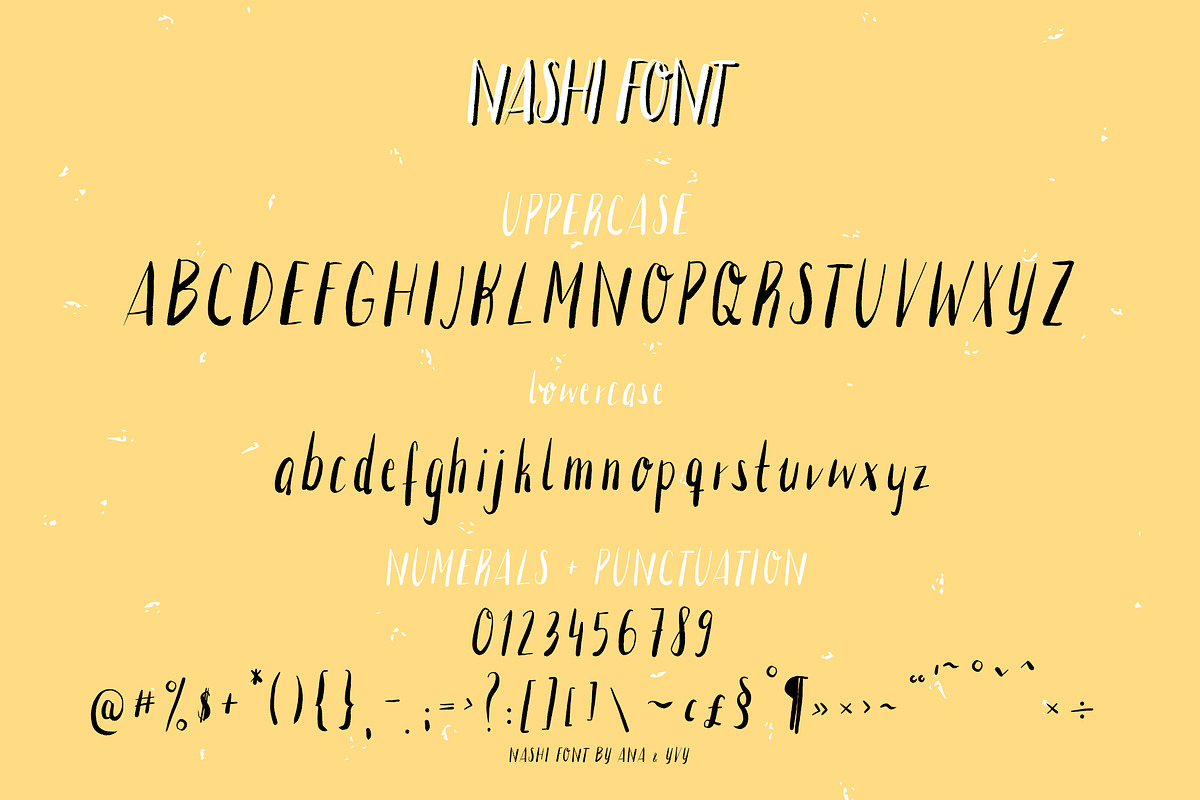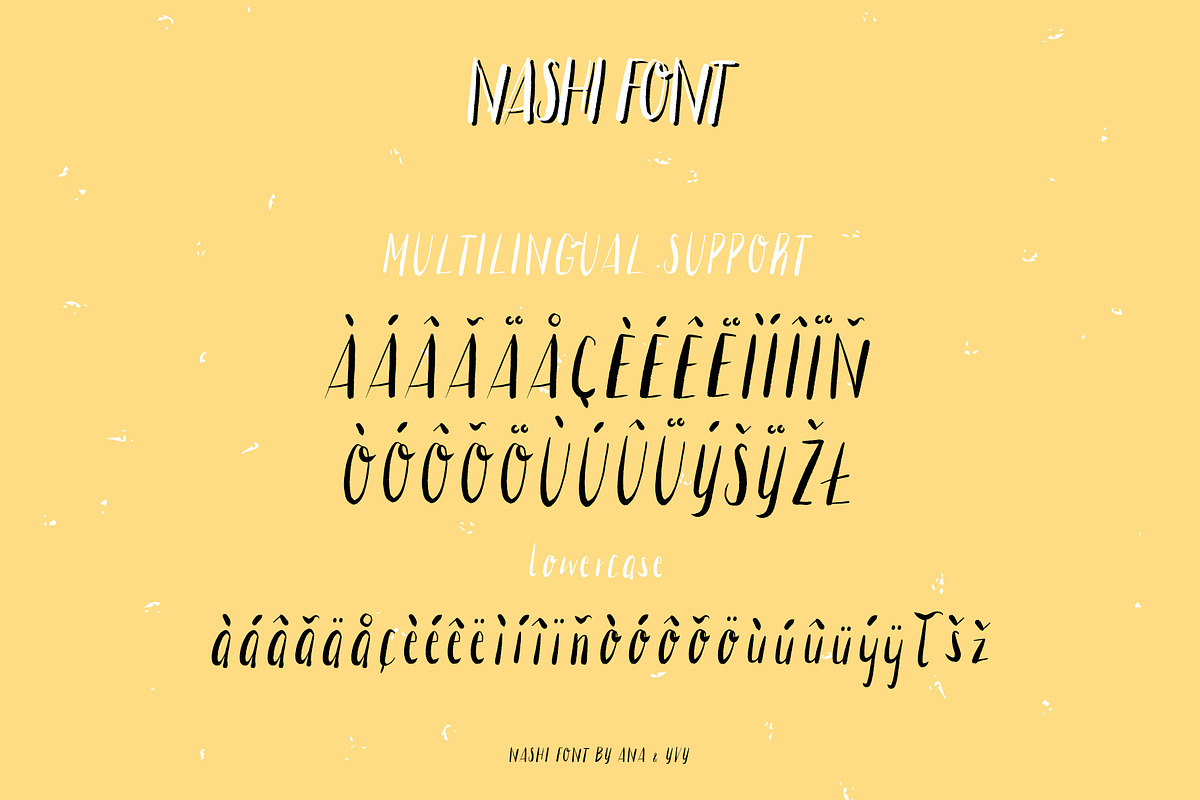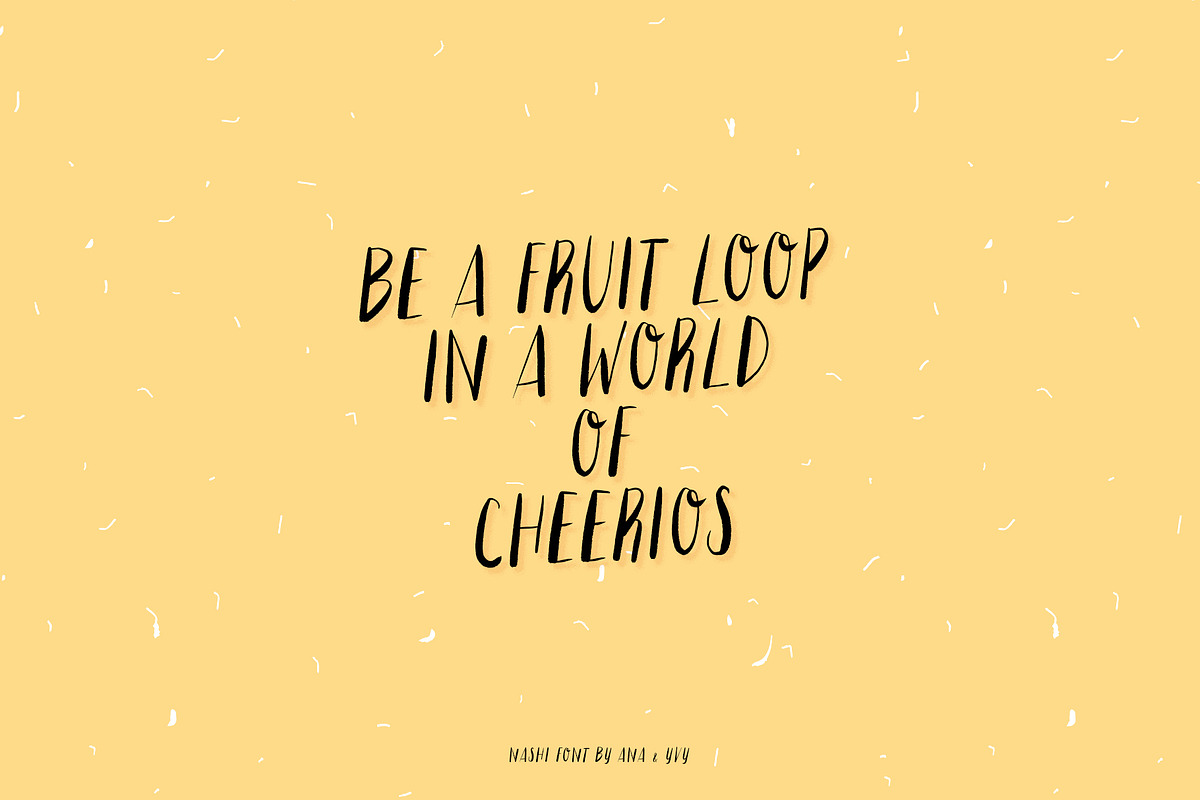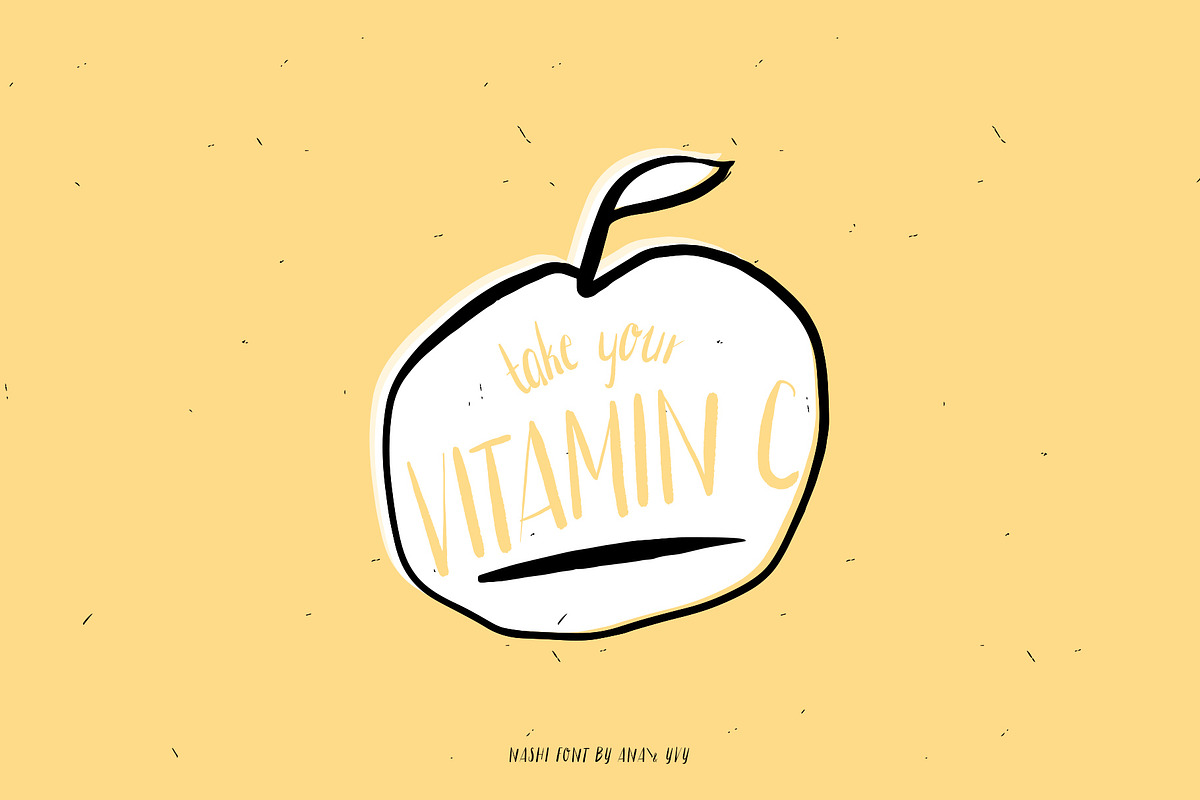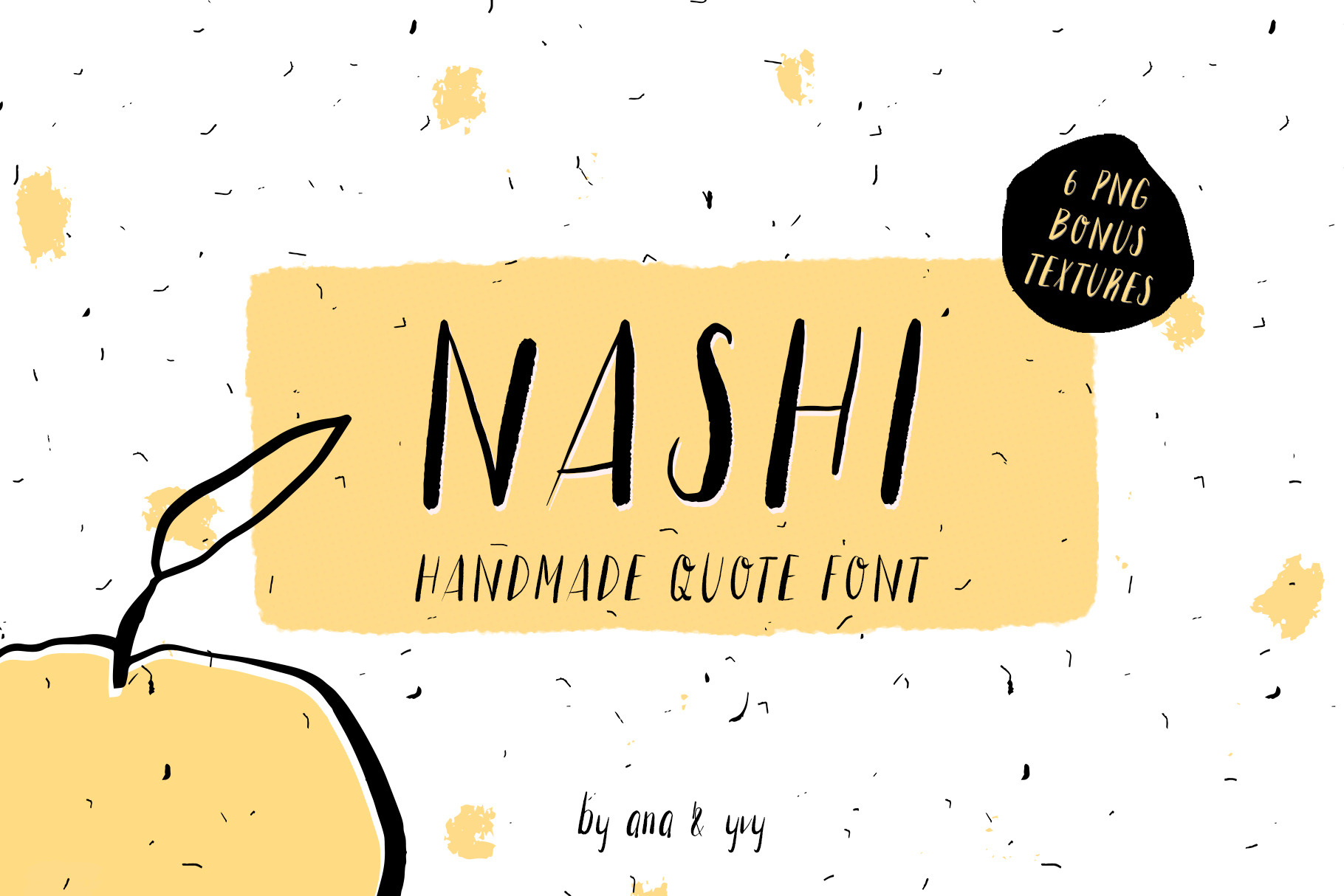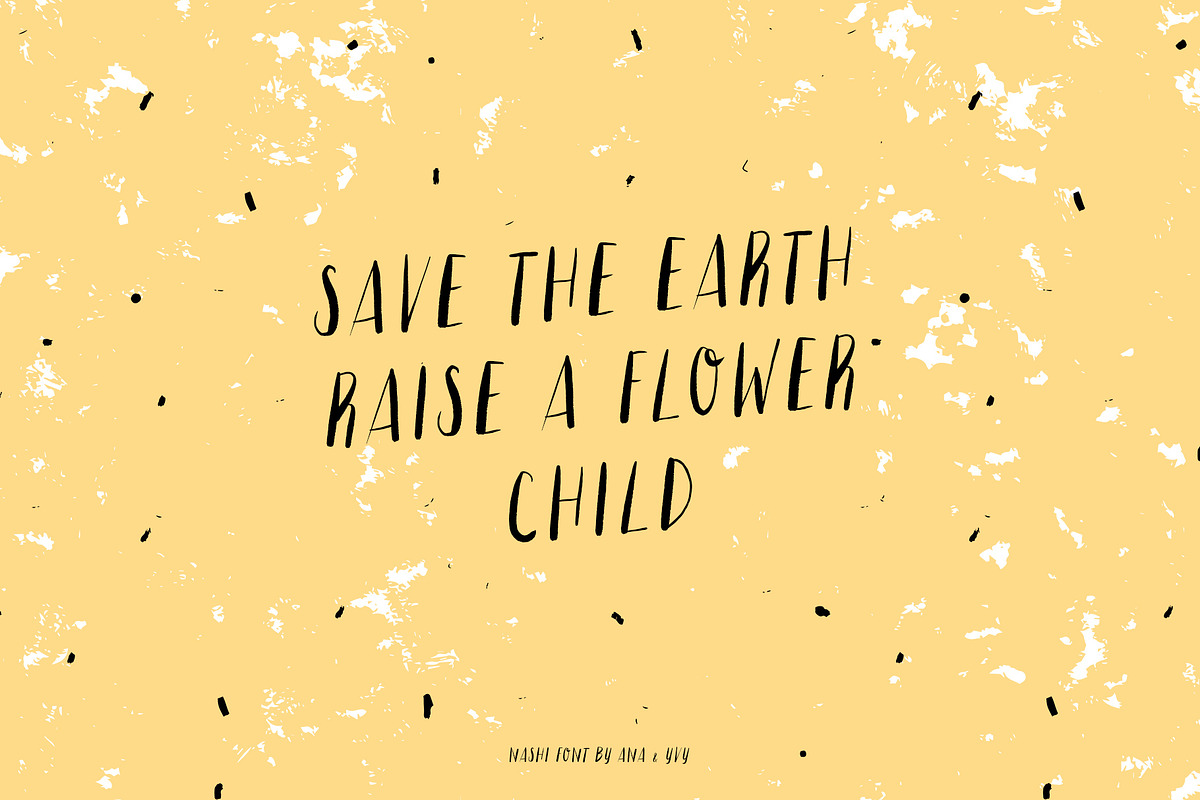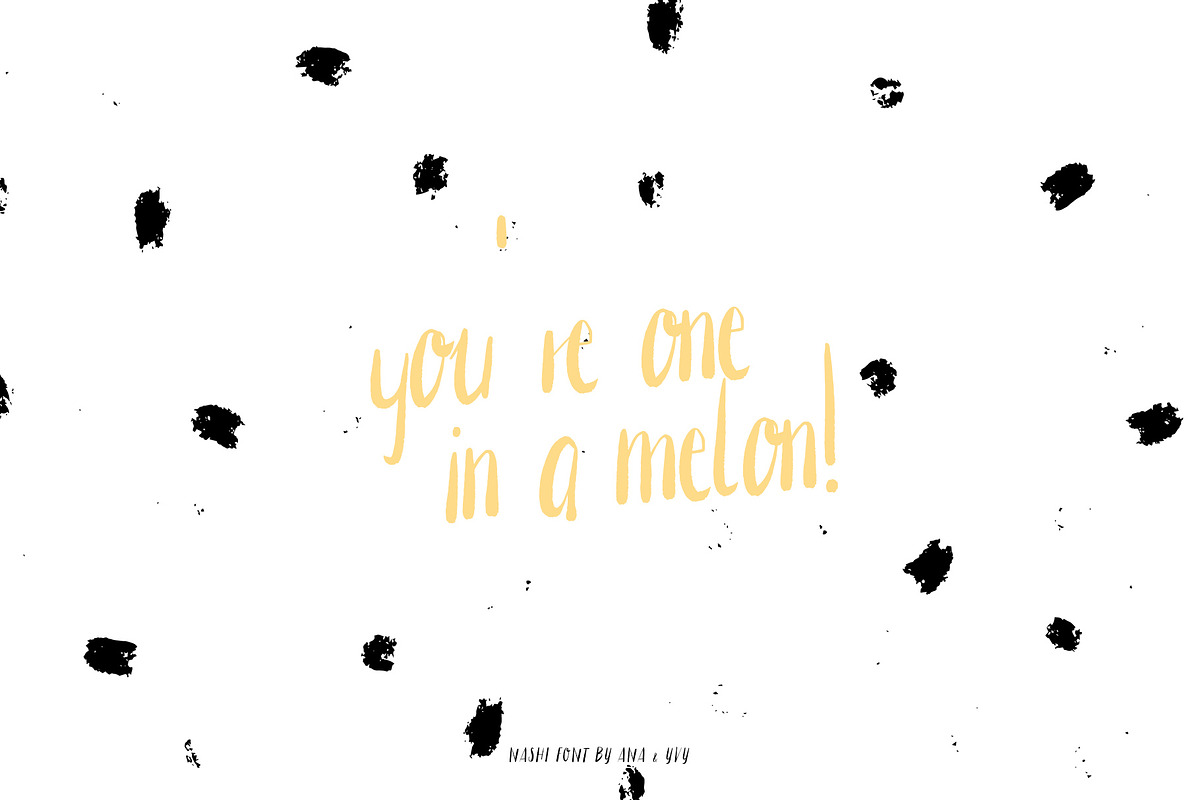
Nashi - Handwritten Quote Font
Say hello to NASHI - a juicy handwritten font & handmade textures for your next tasty quote design. This small package contains not only the cute font but also 7 doodled & handmade PNG textures.
Perfect for personalized quotes, handwritten notes, sweet greeting cards, and playful branding.